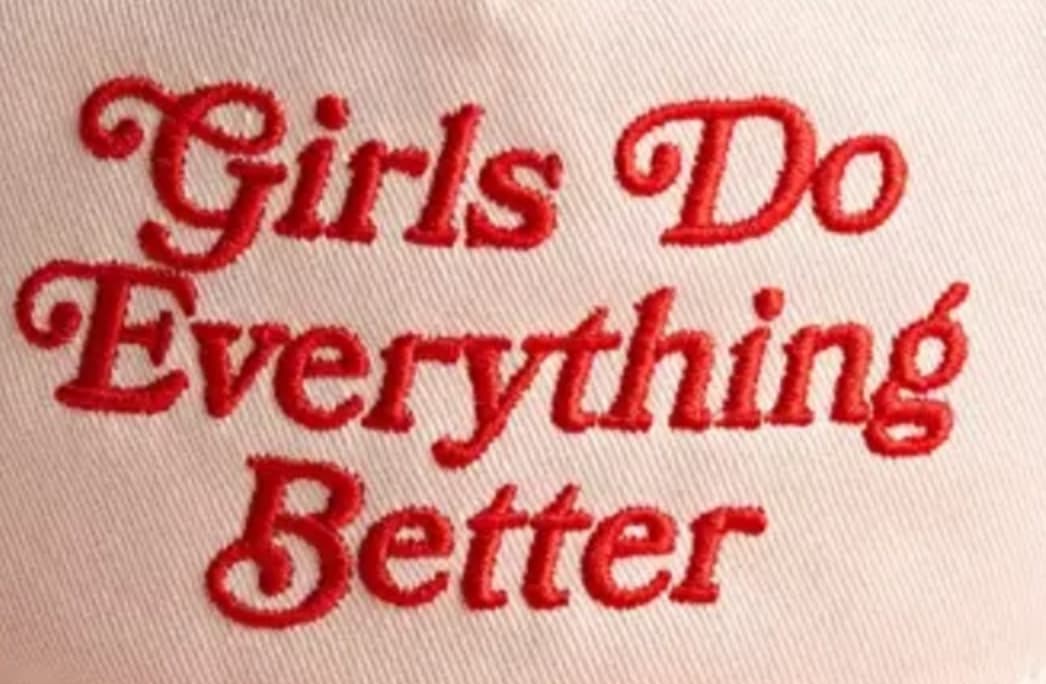
This may have been somewhat altered for embroidery because I’m pretty sure it’s based on Tango
I’m guessing it’s one of the several variations of Bookman Italic showing the optional swashes that come with some of the fonts. The B doesn’t look familiar, though.
If it came out of the embroidery software, if it’s anything like the Signlab software I use, it comes with onboard fonts that proprietary or are ‘similar’ to standard fonts but with tweeks. And you can easily apply a custom slant to the lettering in a good imitation of Italic too.